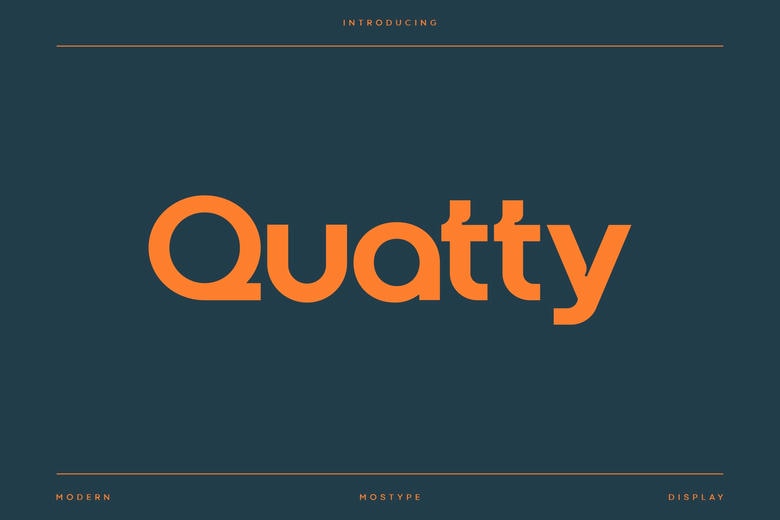
Quatty Font
Quatty is an eye-catching modern display typeface that makes a statement on its own with its bold and geometric letterforms and assertive proportions. The roundness in its Q gives a touch of loveliness and the edged and crisp cuts of the t and the y add a touch of coolness resulting in a much like amiability and strength.
It weighs heavily and its lines are clean that make it convenient to be used in powerful headlines, branding and images that must be memorable. Its modern modernized appearance comes to its systematic nature of the thickness of the strokes, the low contrast, and its flowing nature of the curves making it both graceful and practical with its spaceous counters giving a high legibility up to its large scales.
Quatty Modern Display Font